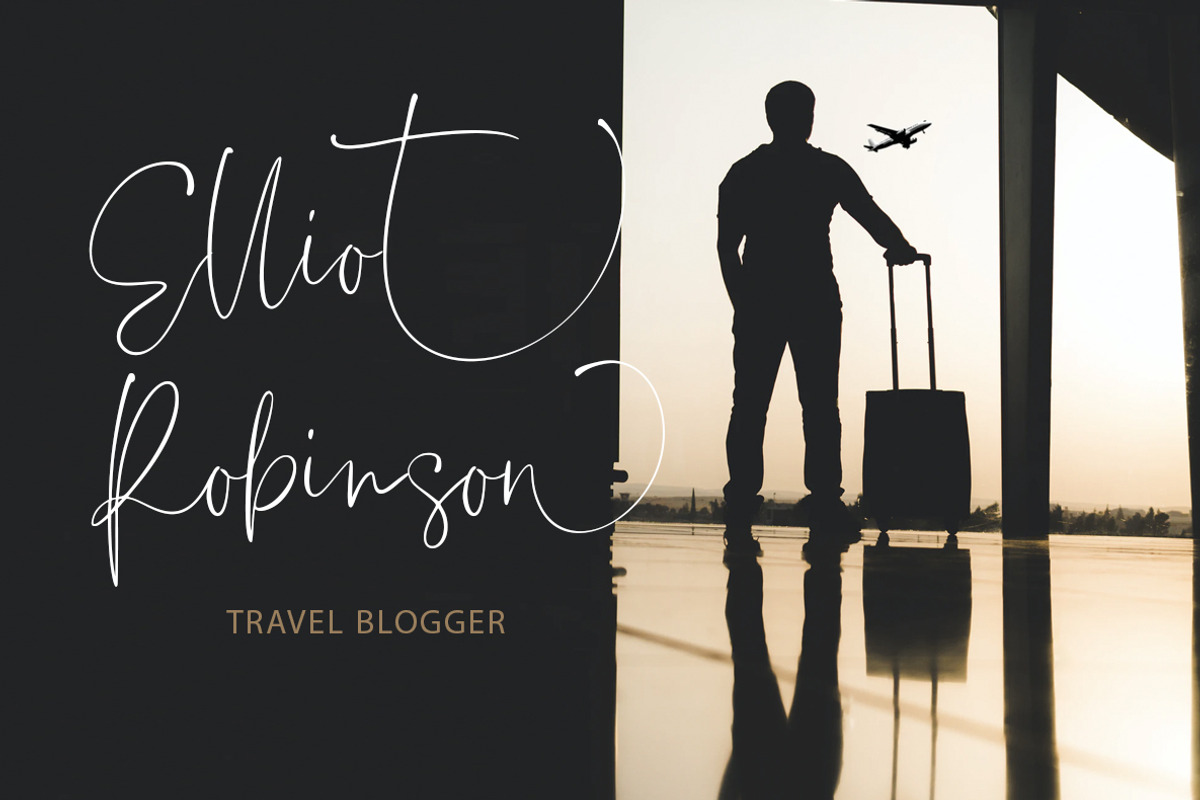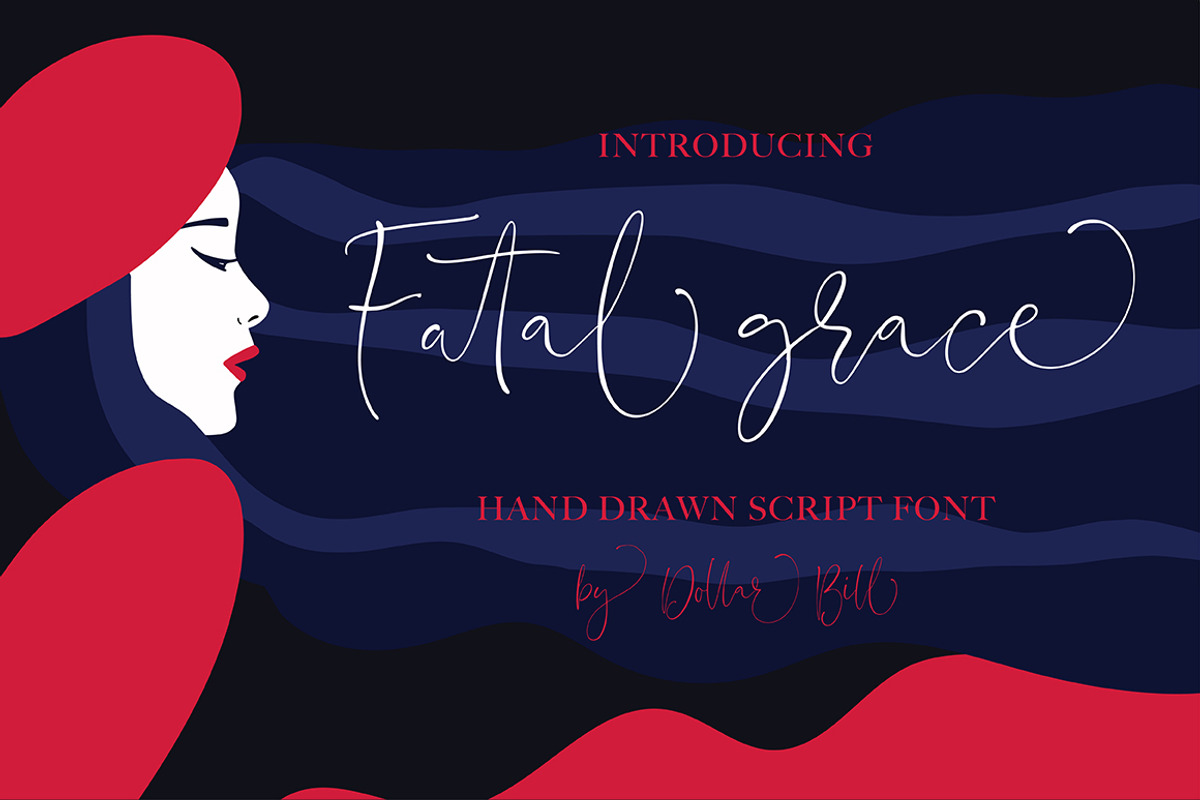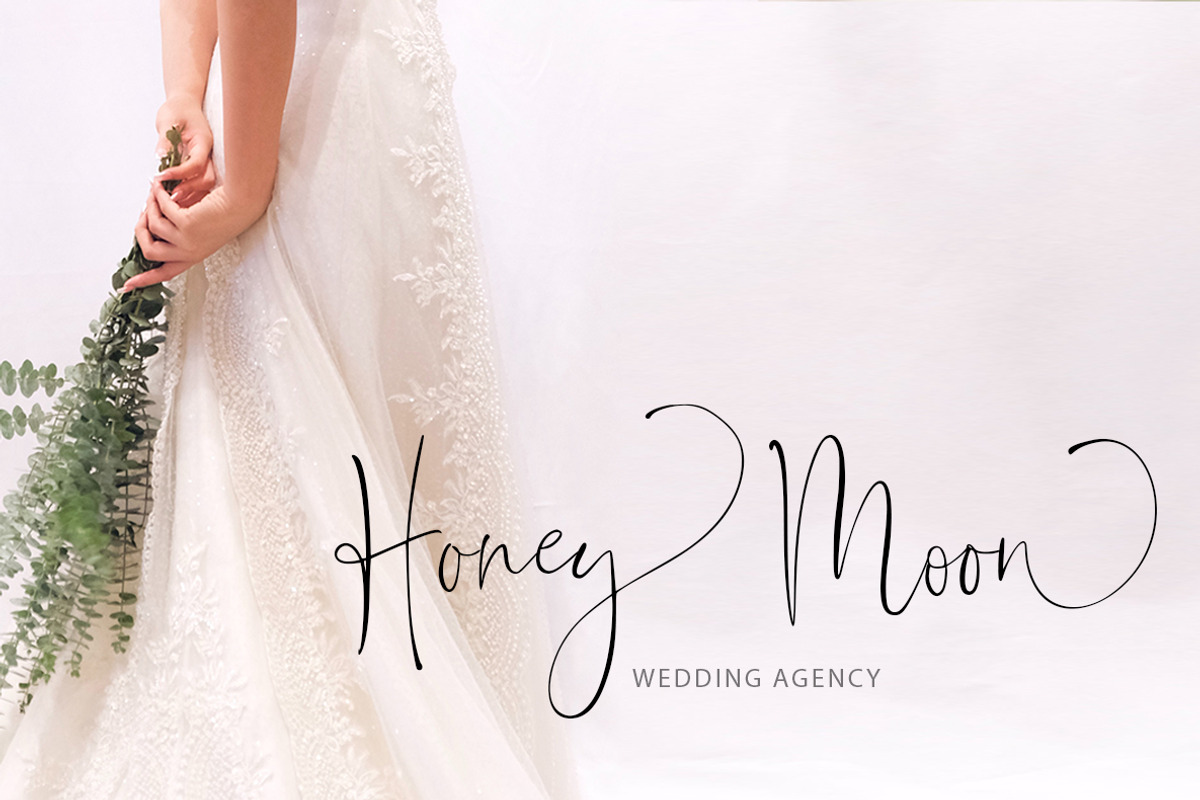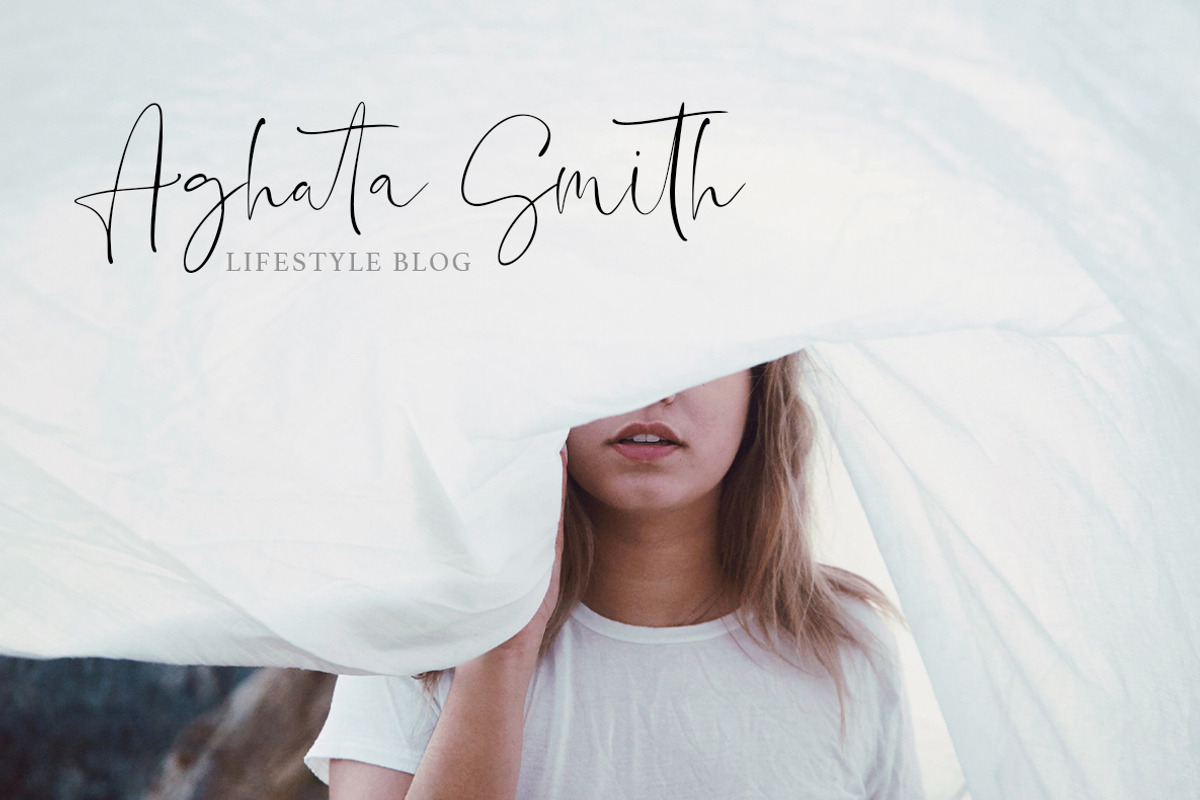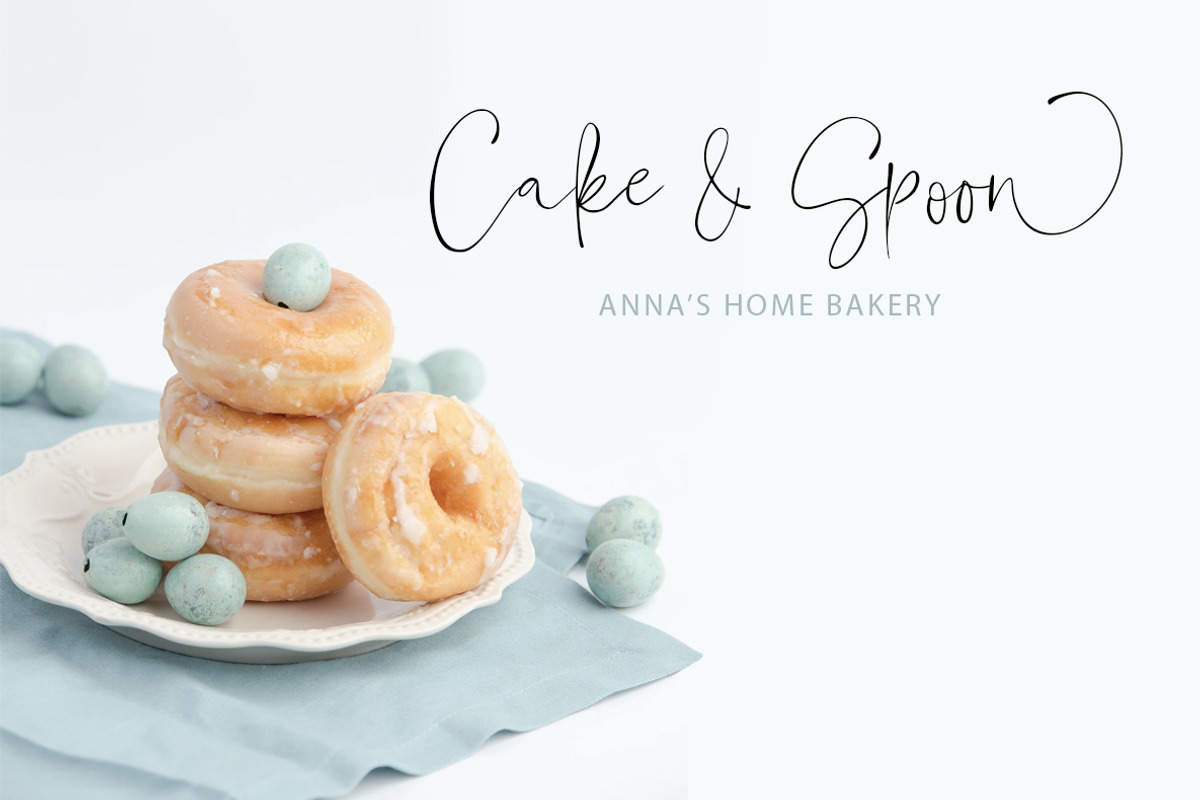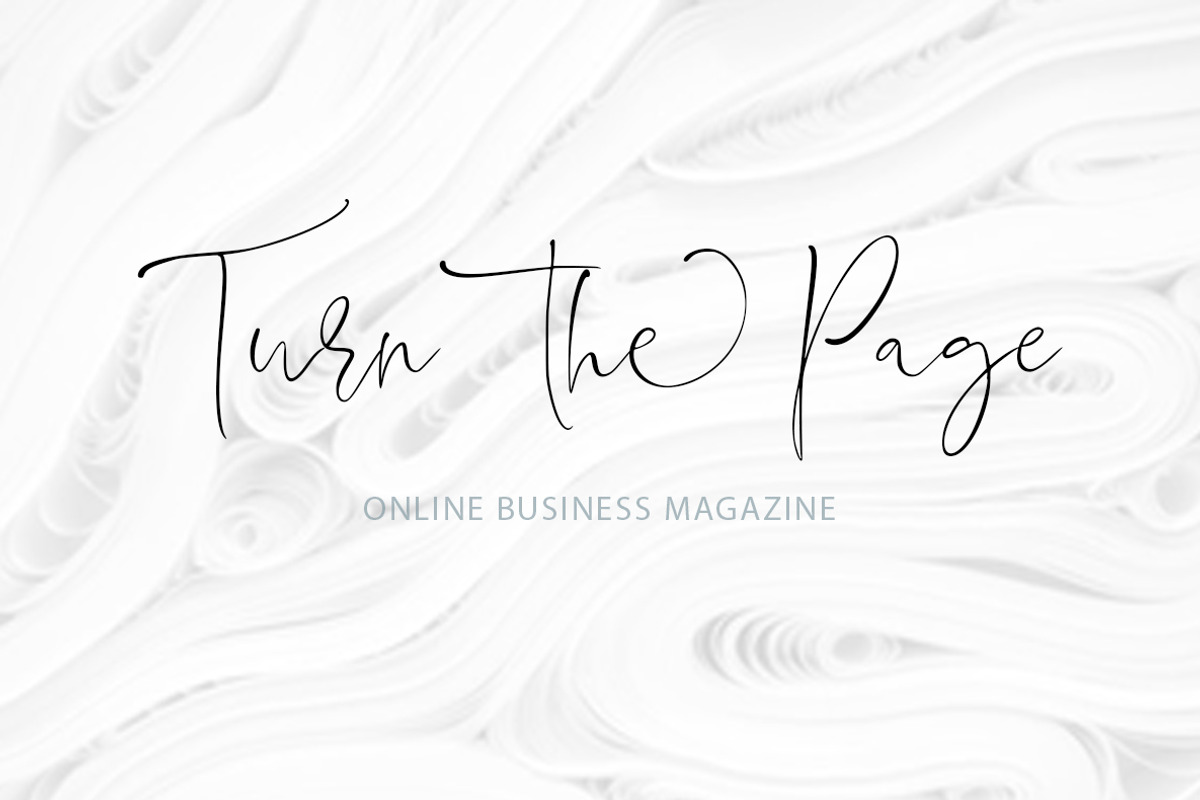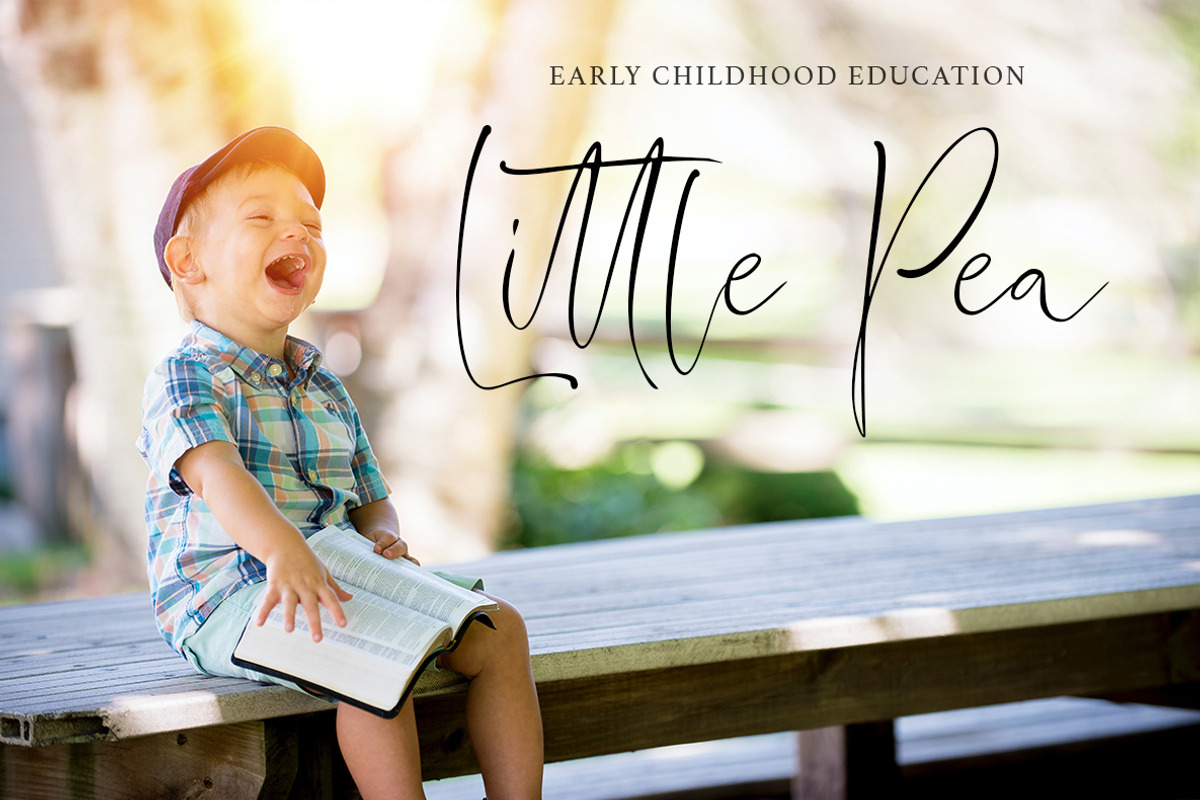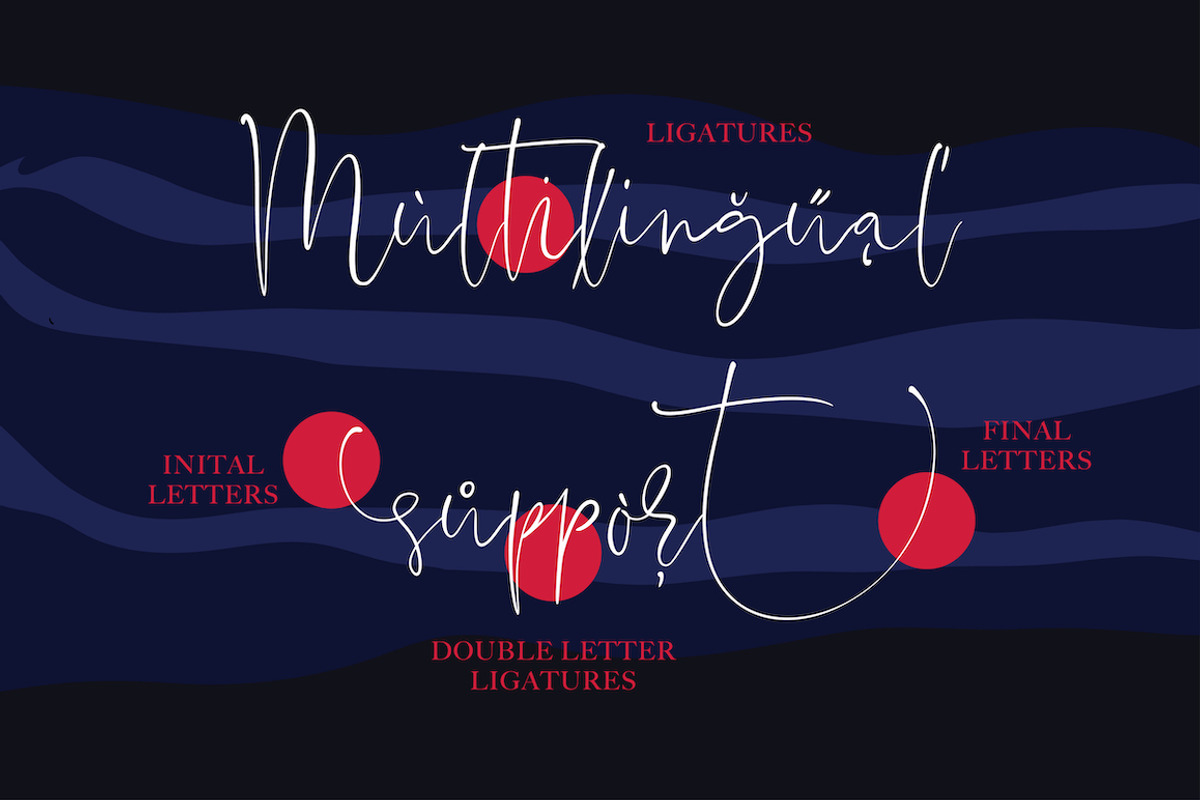
Fatal Grace. Signature Script Font.
«Fatal Grace» is a beautiful script SIGNATURE font with an unique bouncy character.It is perfect for blogging, social media, branding, wedding invites and cards.
«Fatal Grace» includes full set of gorgeous uppercase and lowercase letters, numerals, a large range of punctuation, initial and final lowercase glyphs & ligatures. It’s all giving realistic hand-lettered style.
«Fatal Grace» Font includes multilingual support. Western European, Central European and South Eastern European languages are included. Please type characters in text box below to check any characters you need.